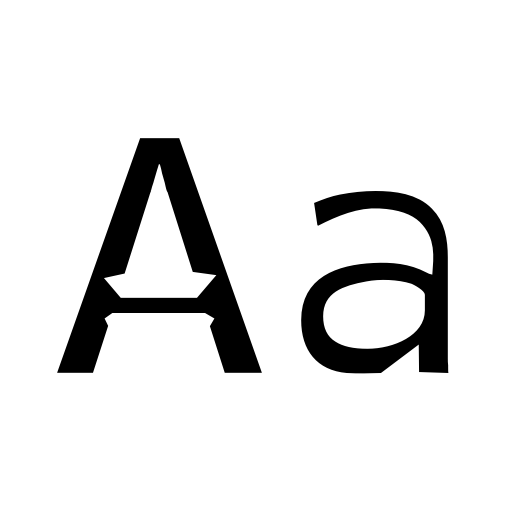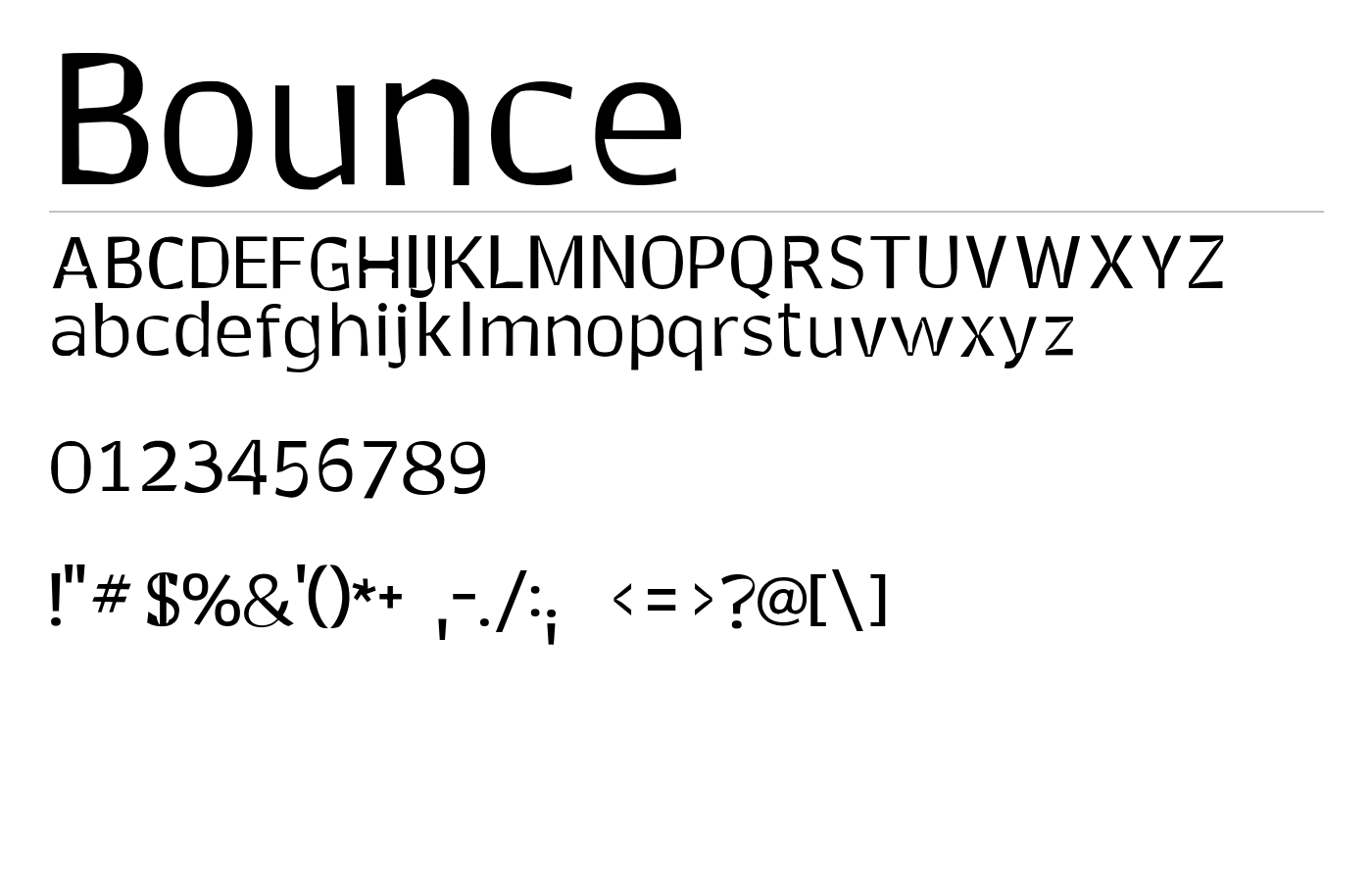
Bounce is a narrow sans serif font with a slightly playful and quirky character, featuring uneven stroke widths and subtle, irregular shapes that give it a lively, informal feel. Its tall x-height and clean letterforms make it readable yet distinct, ideal for creative headlines and branding that seeks a friendly, approachable look without sacrificing professionalism.
Bounce Font
About Bounce Font